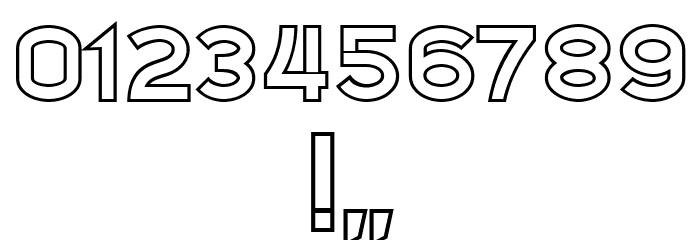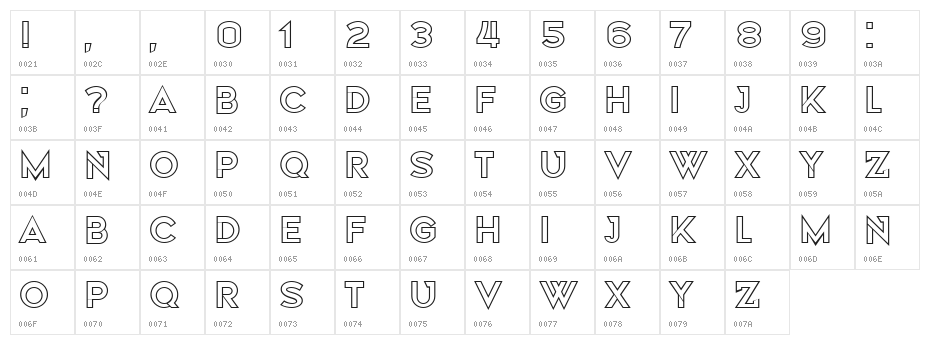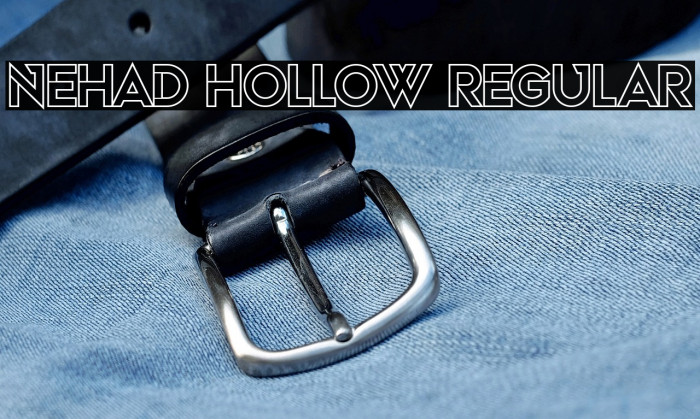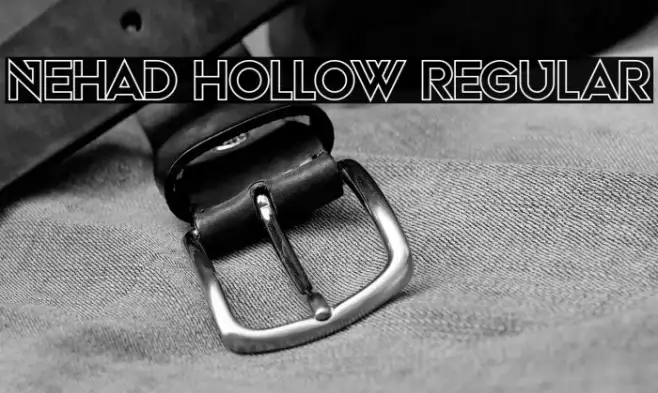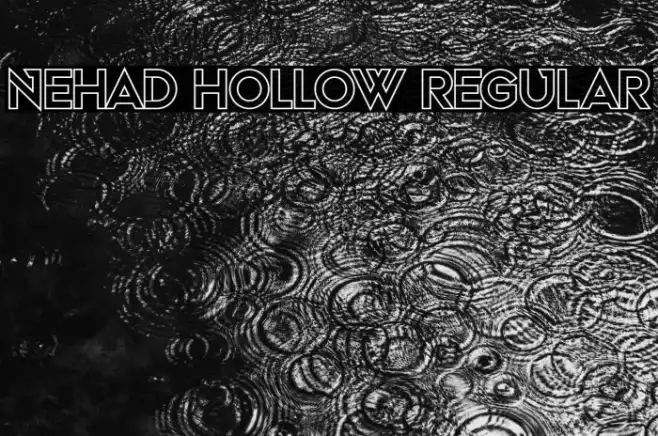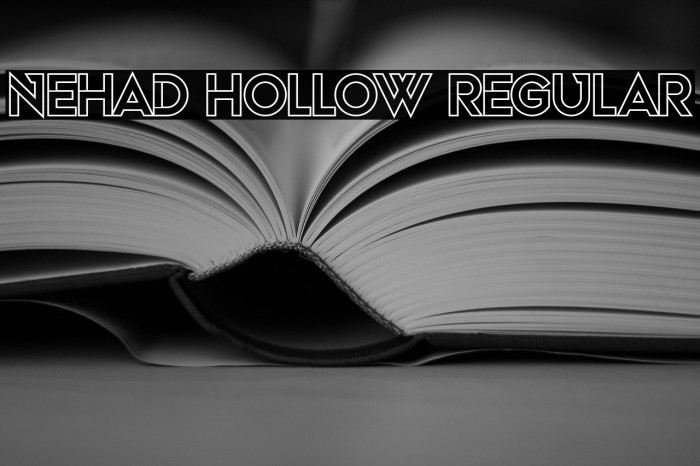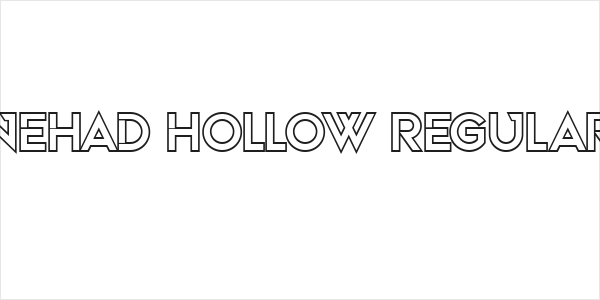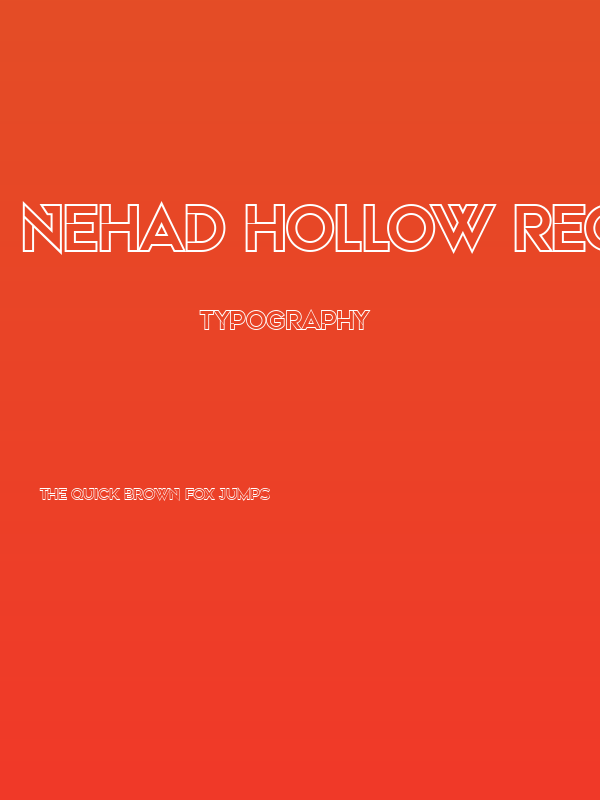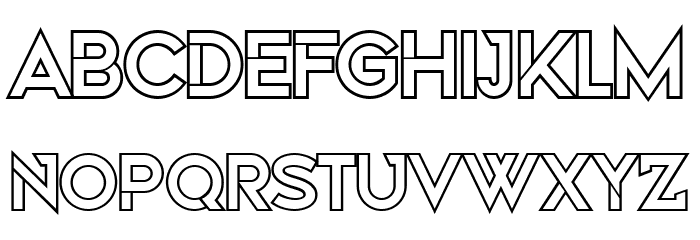
Nehad Hollow Regular Font
Nehad Hollow Regular Description
This font features a hollow, geometric design with clean and precise lines, creating a modern and striking appearance. The characters are constructed with uniform thickness, giving them a balanced and symmetrical look. The uppercase letters are bold and commanding, while the numerals and special characters maintain the same hollow style, ensuring consistency throughout. The font's open design allows for excellent readability, making it suitable for various design applications where a contemporary and eye-catching aesthetic is desired.